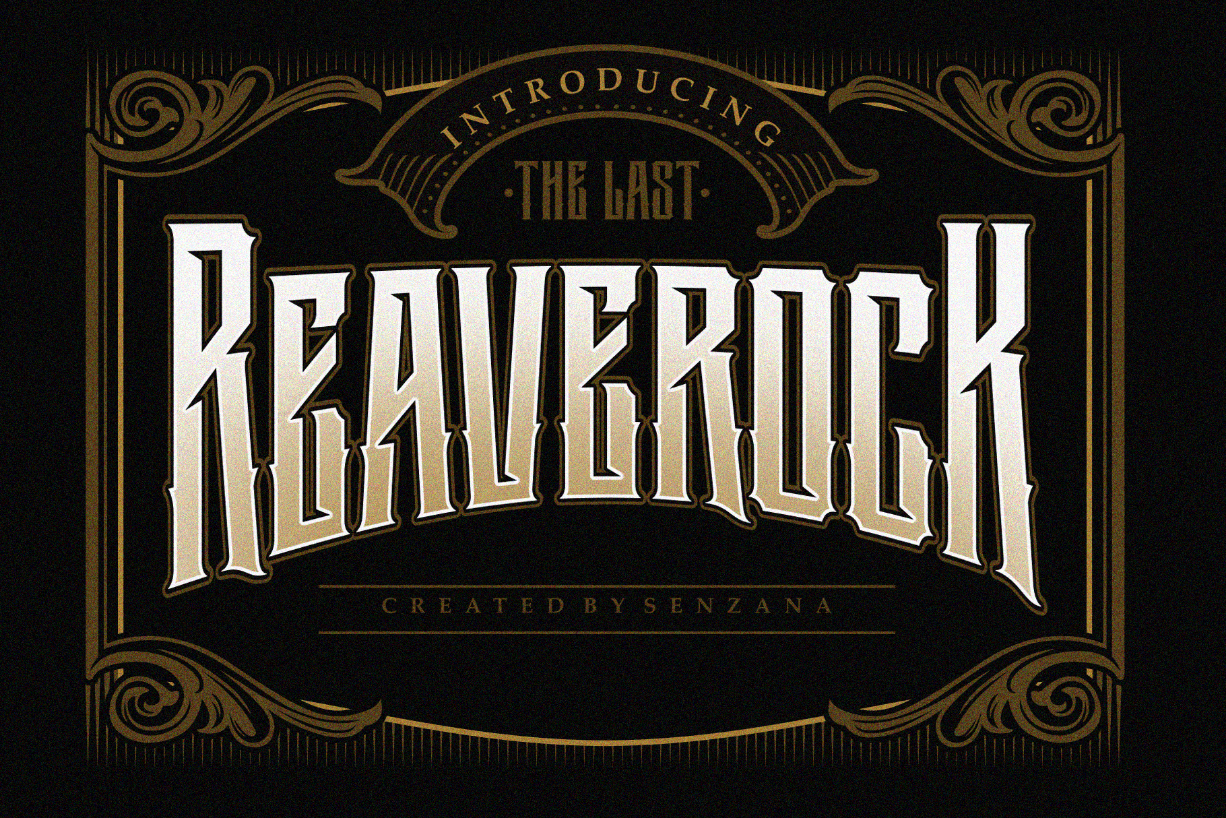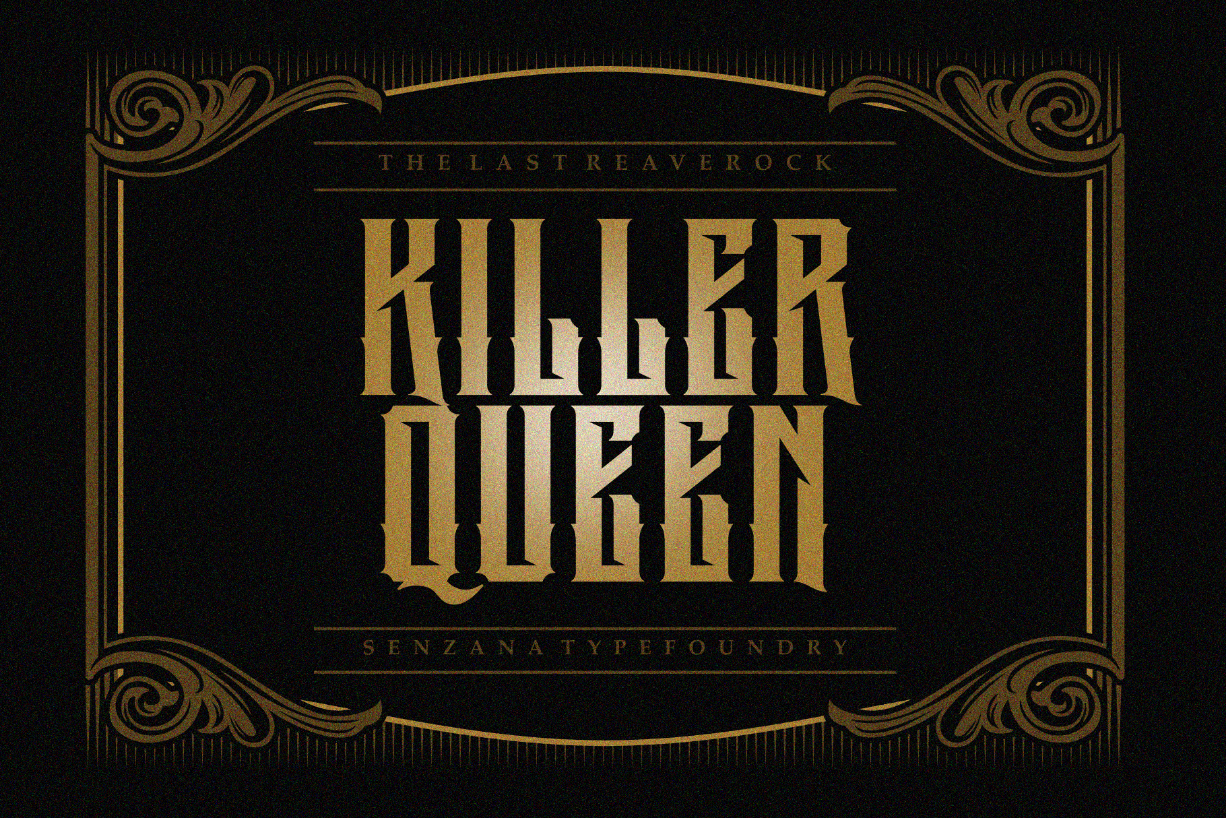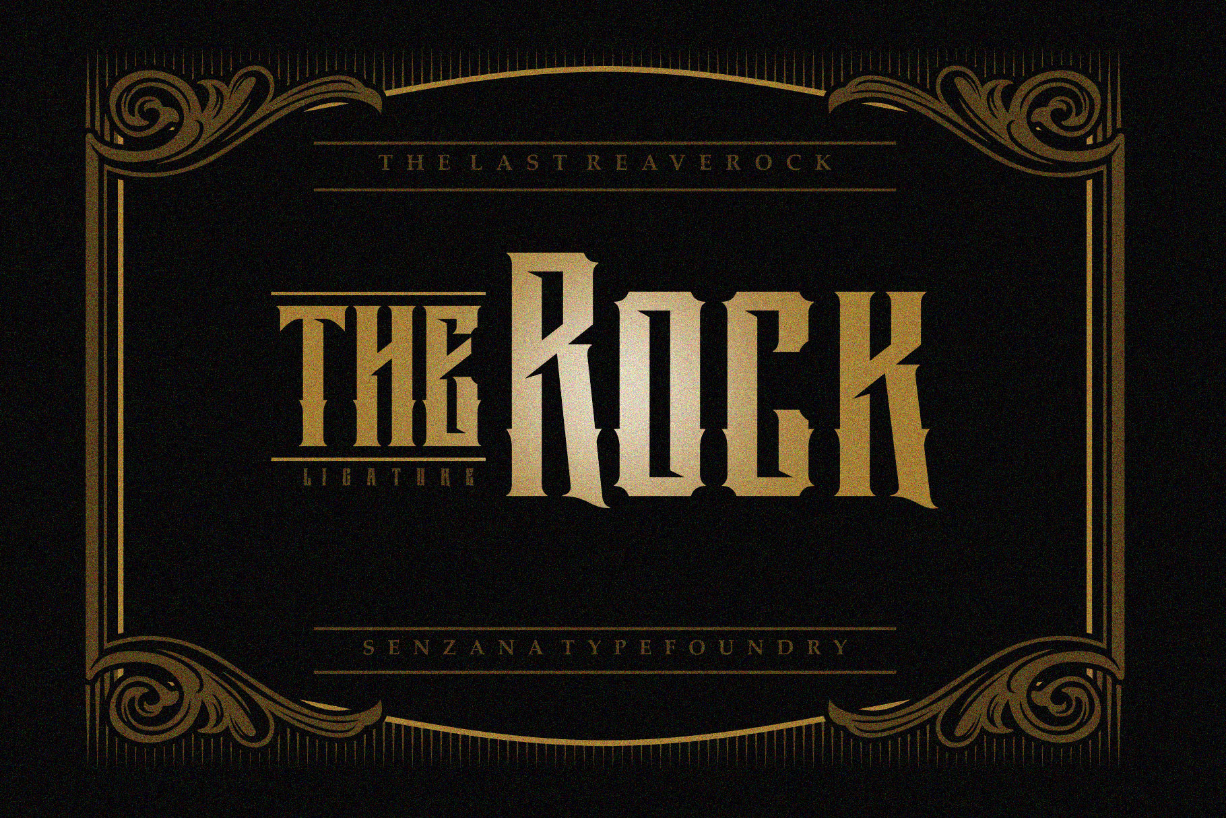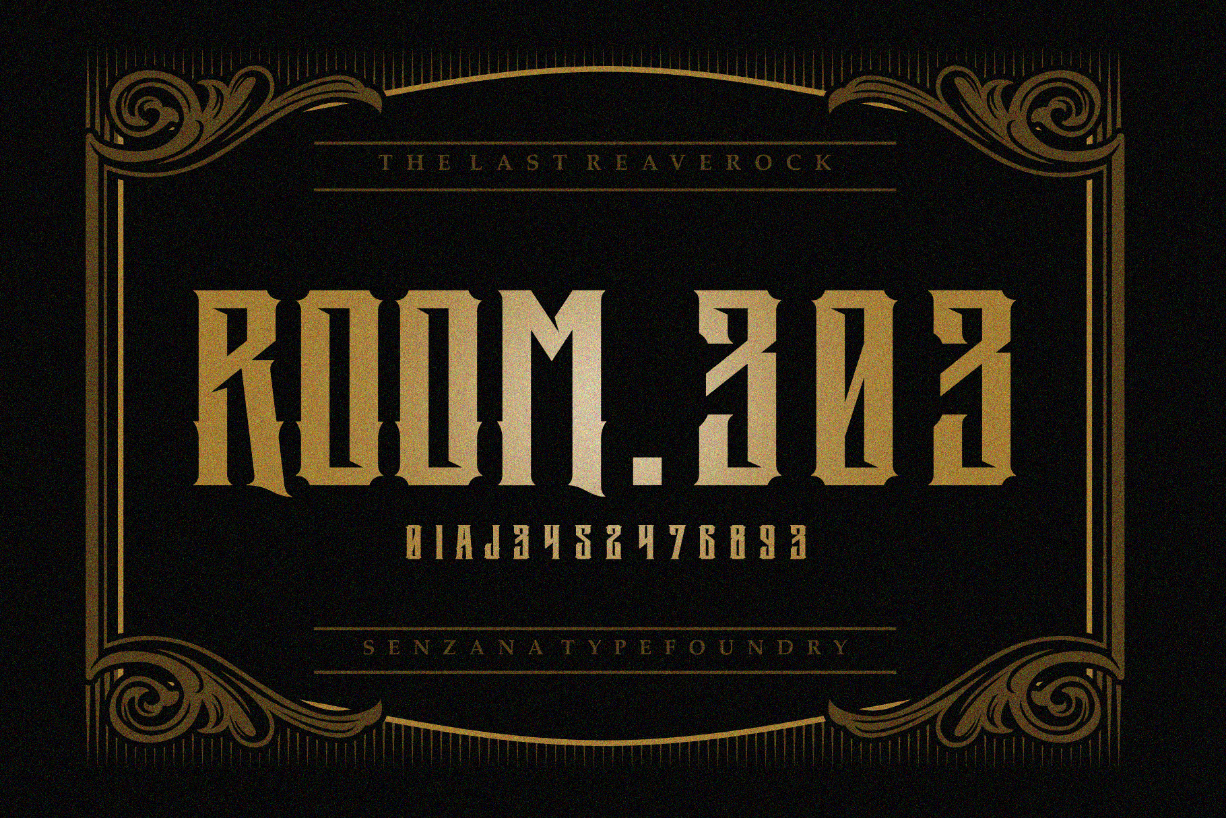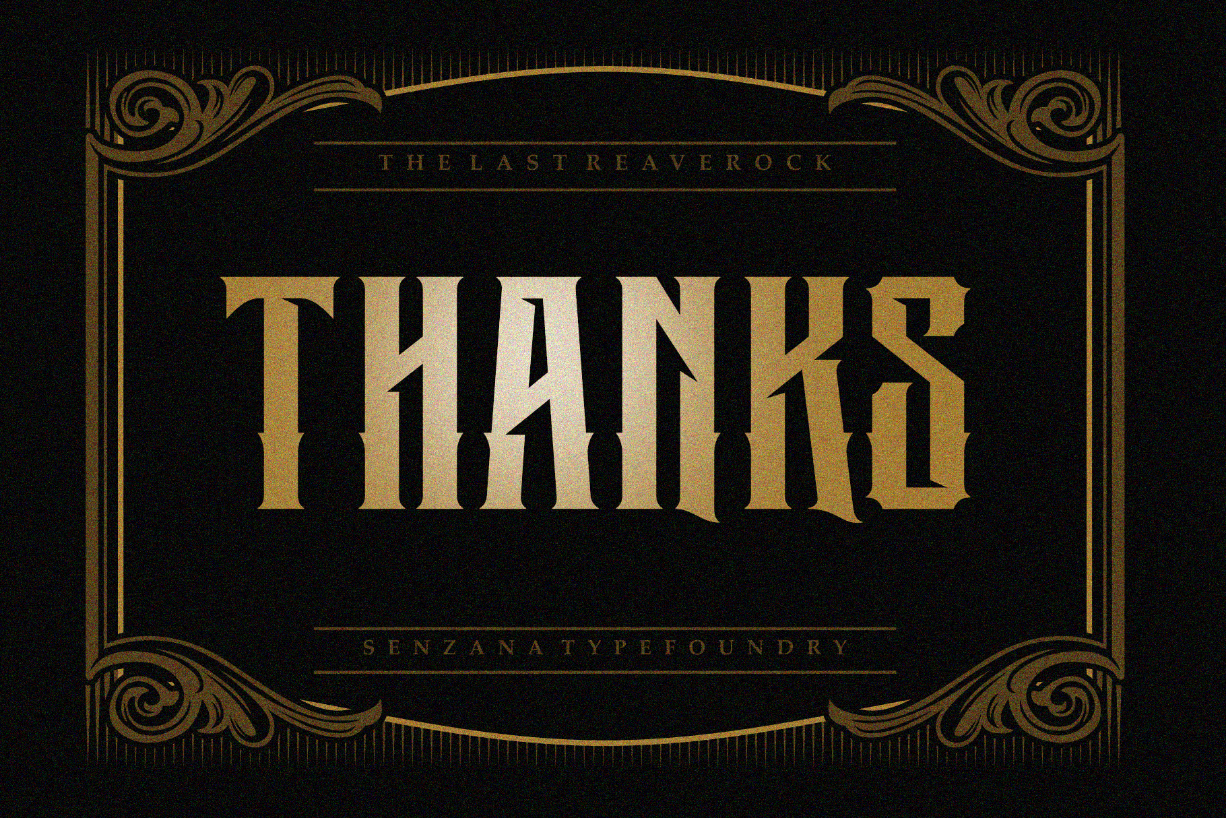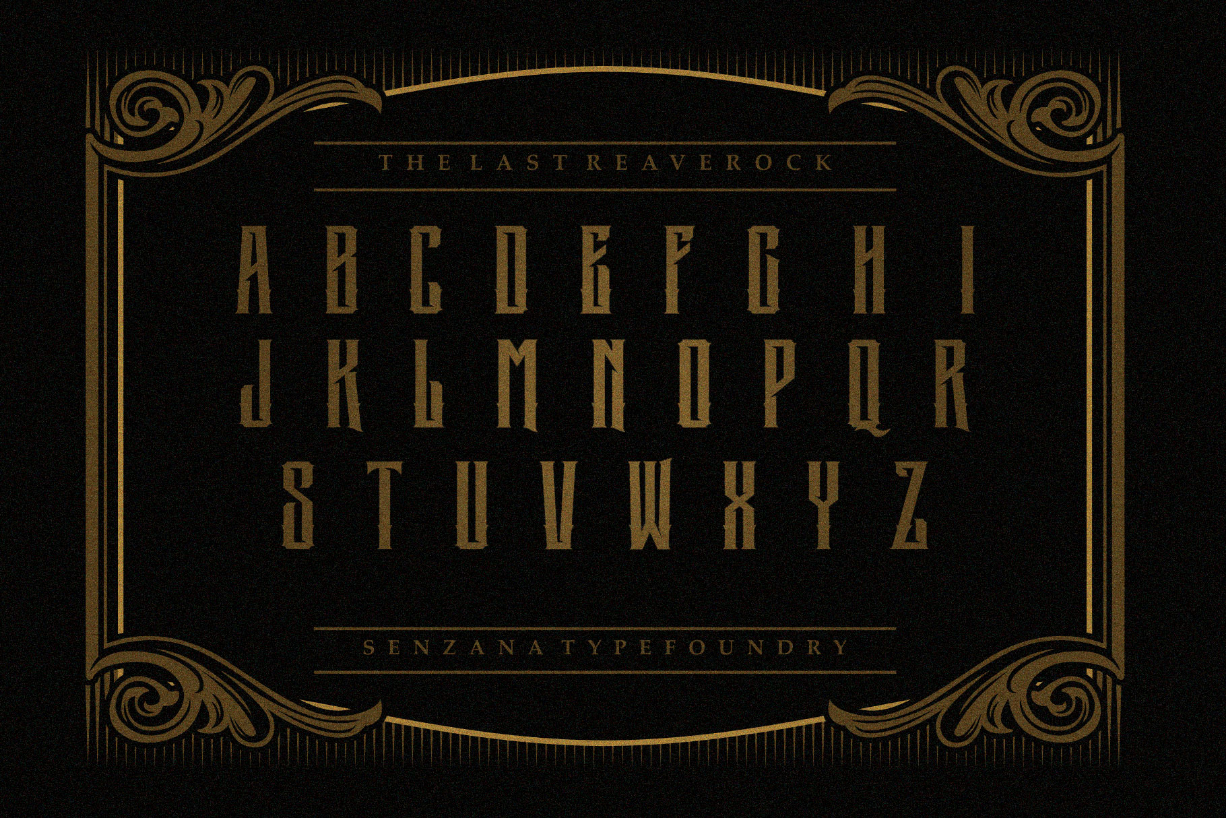
The Last Reaverock Font
About The Last Reaverock Font
The Last Reaverock is an imposing and authentic blackletter font. This font features bold characters and a strong visual effect, which will instantly make your creation more appealing than any others.